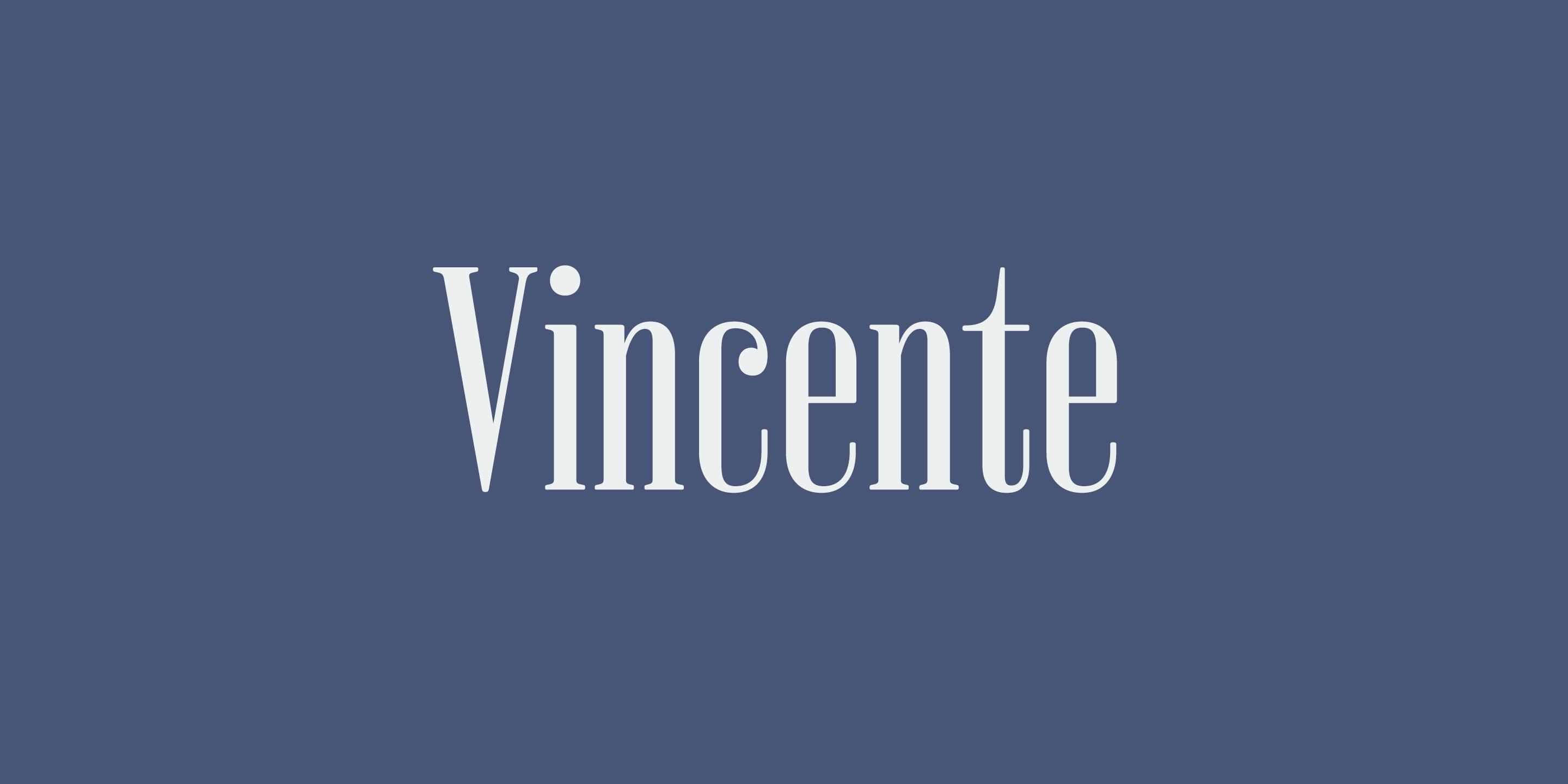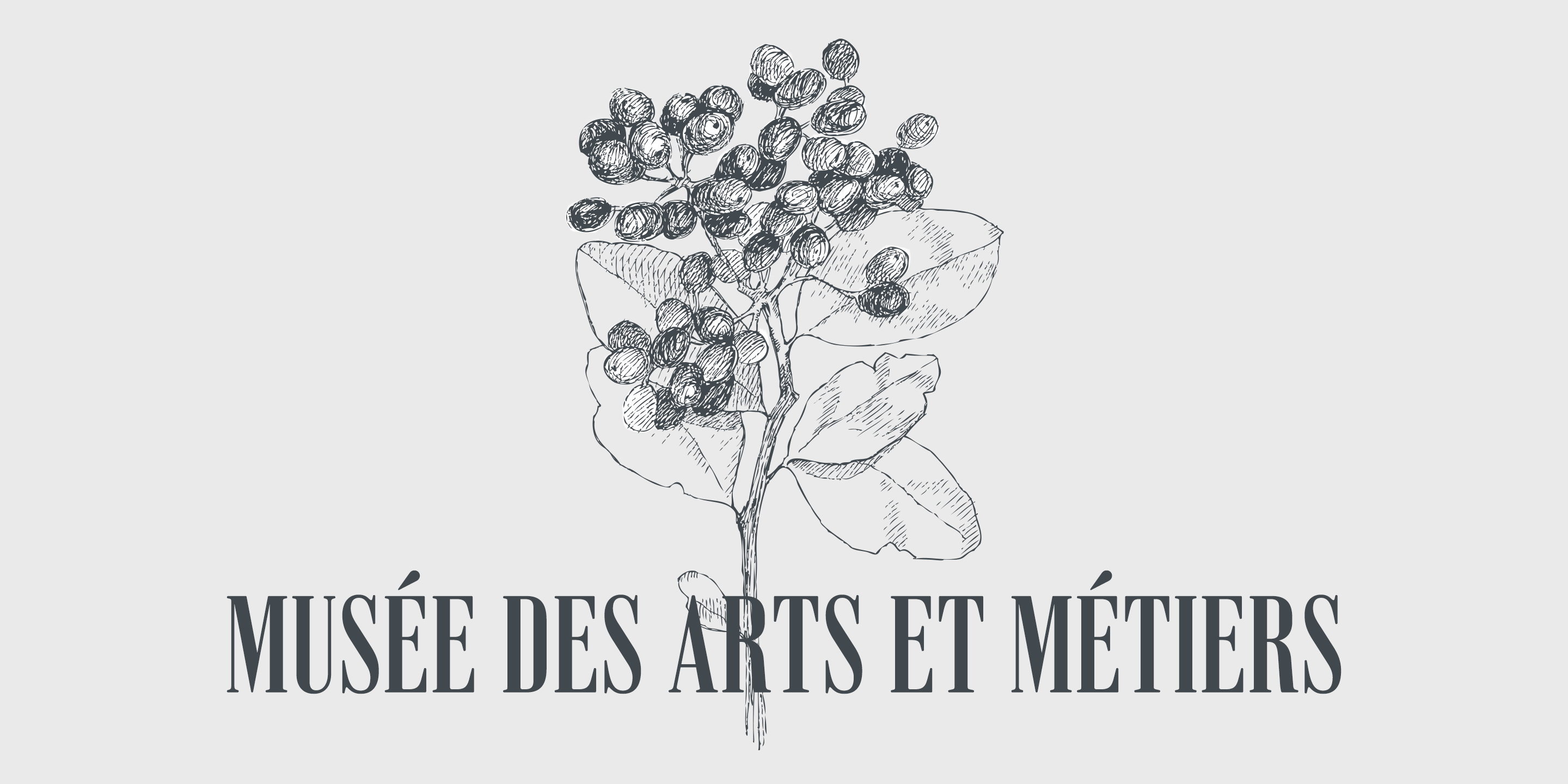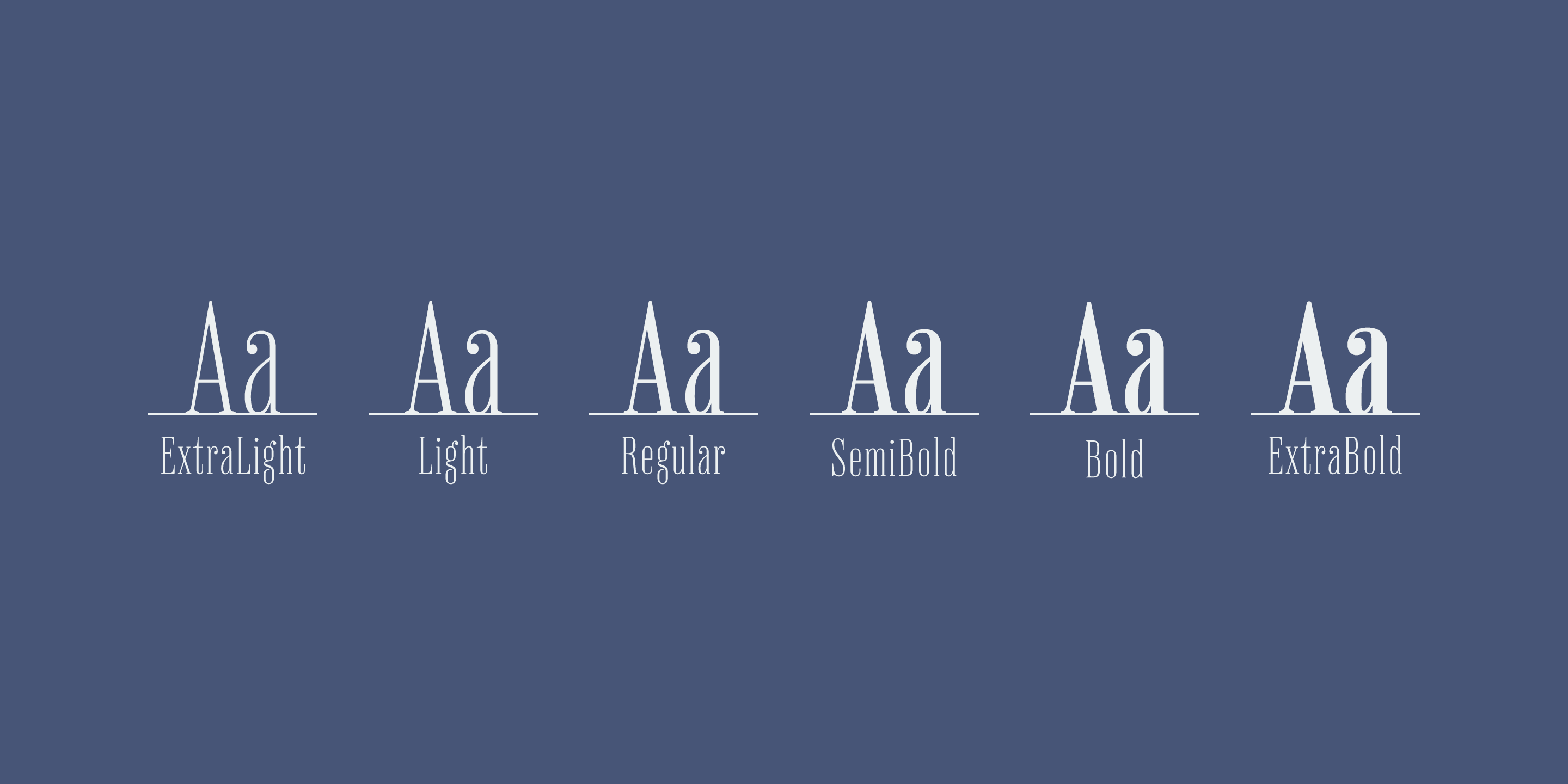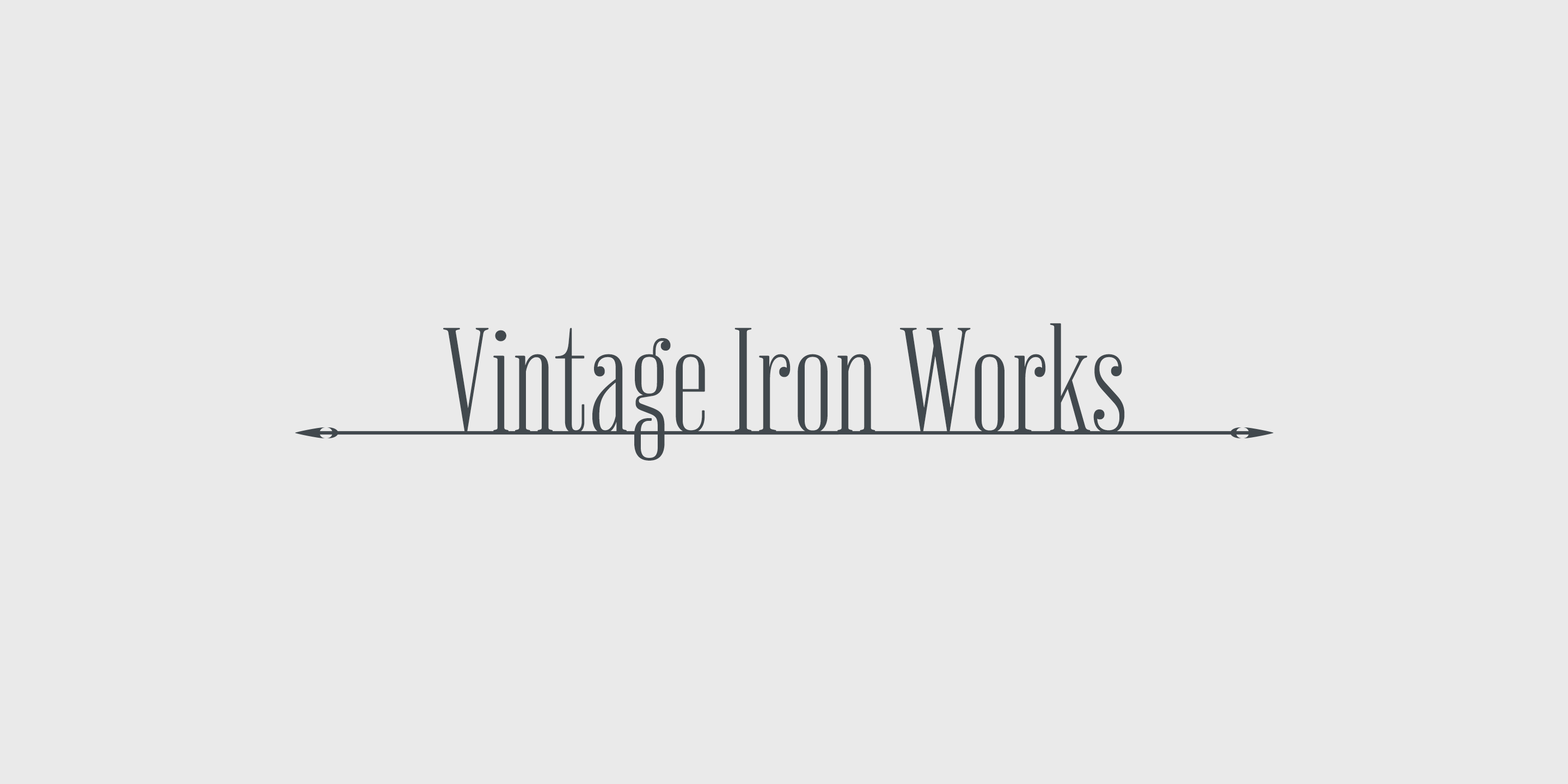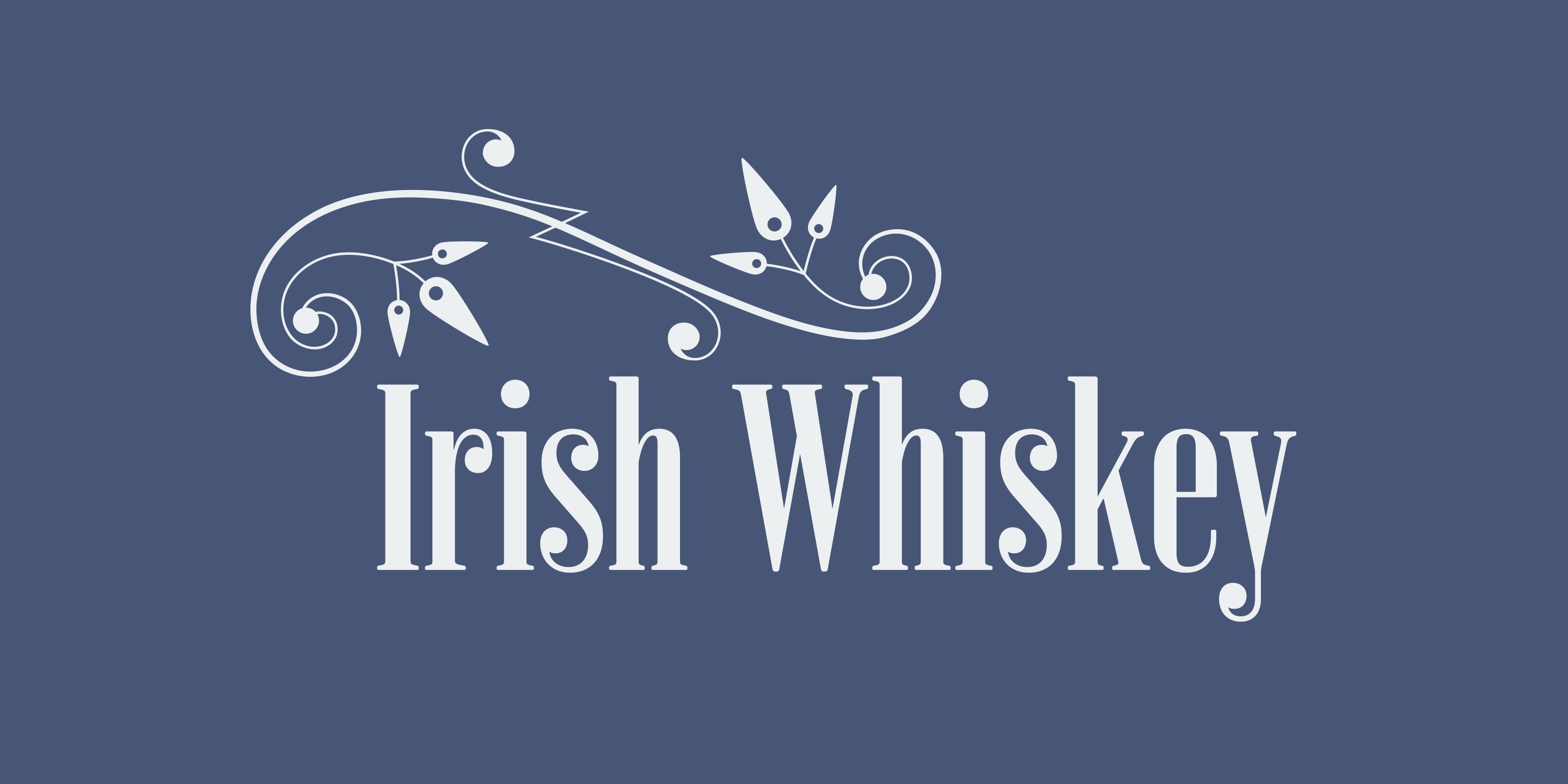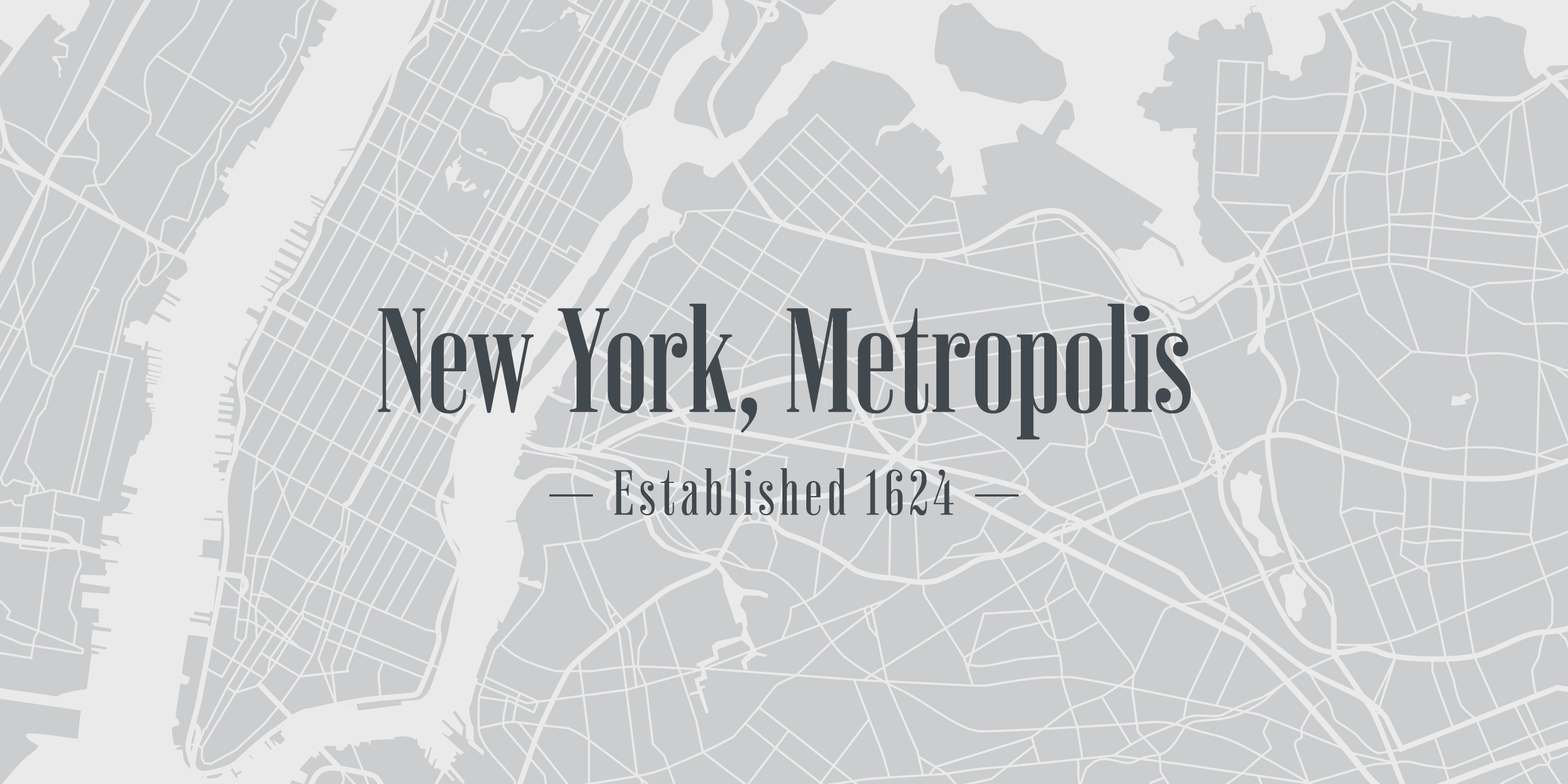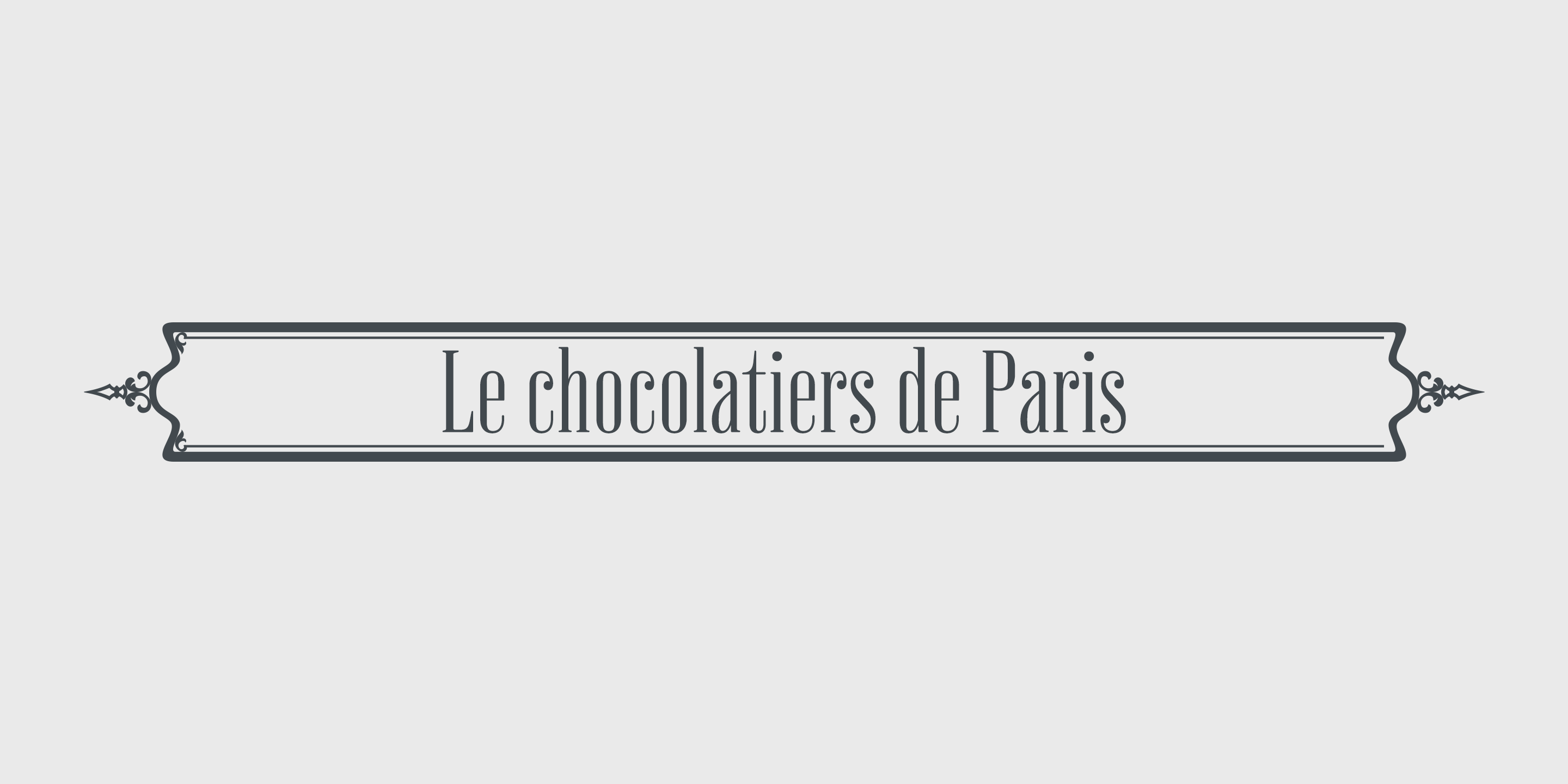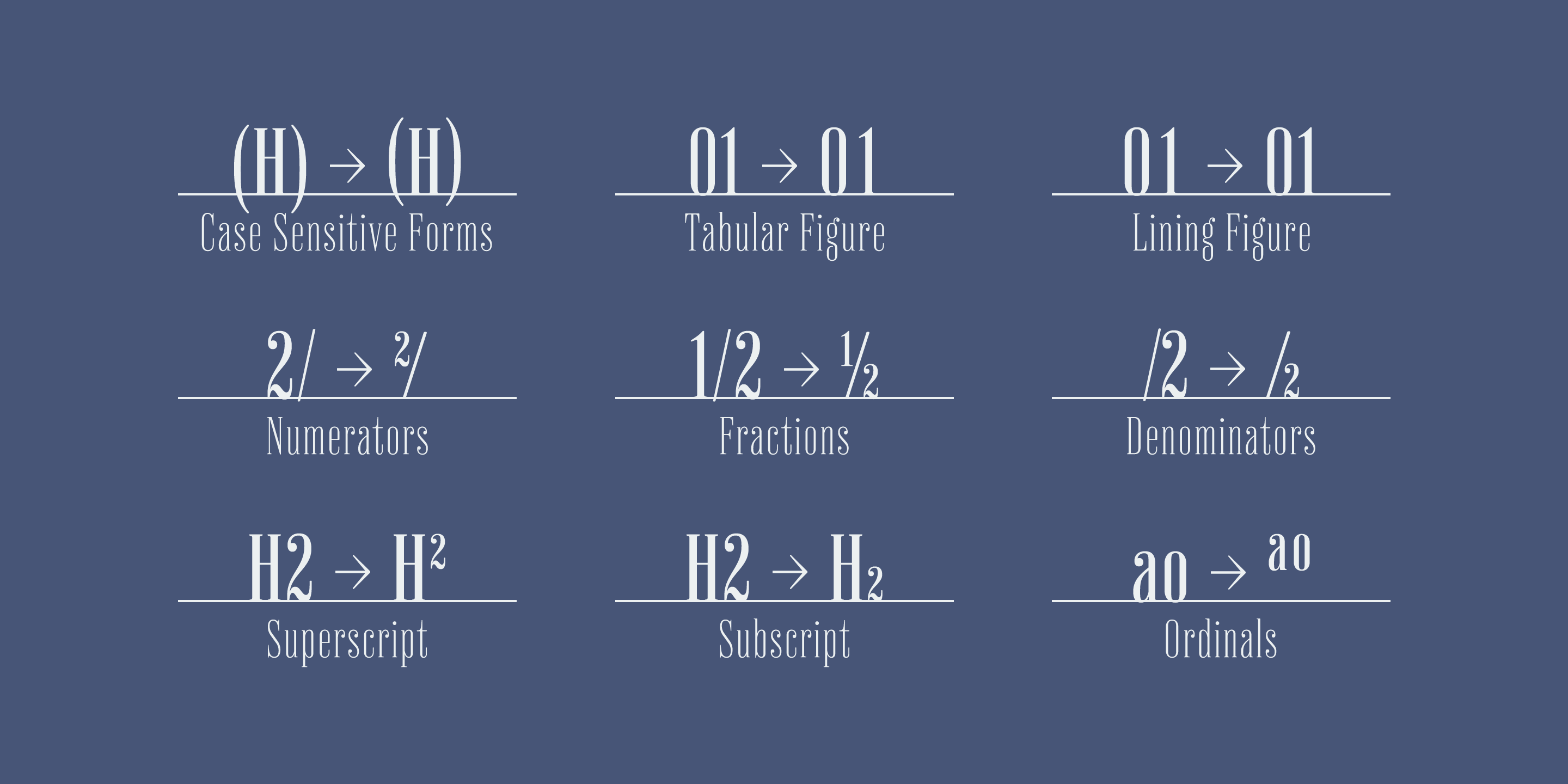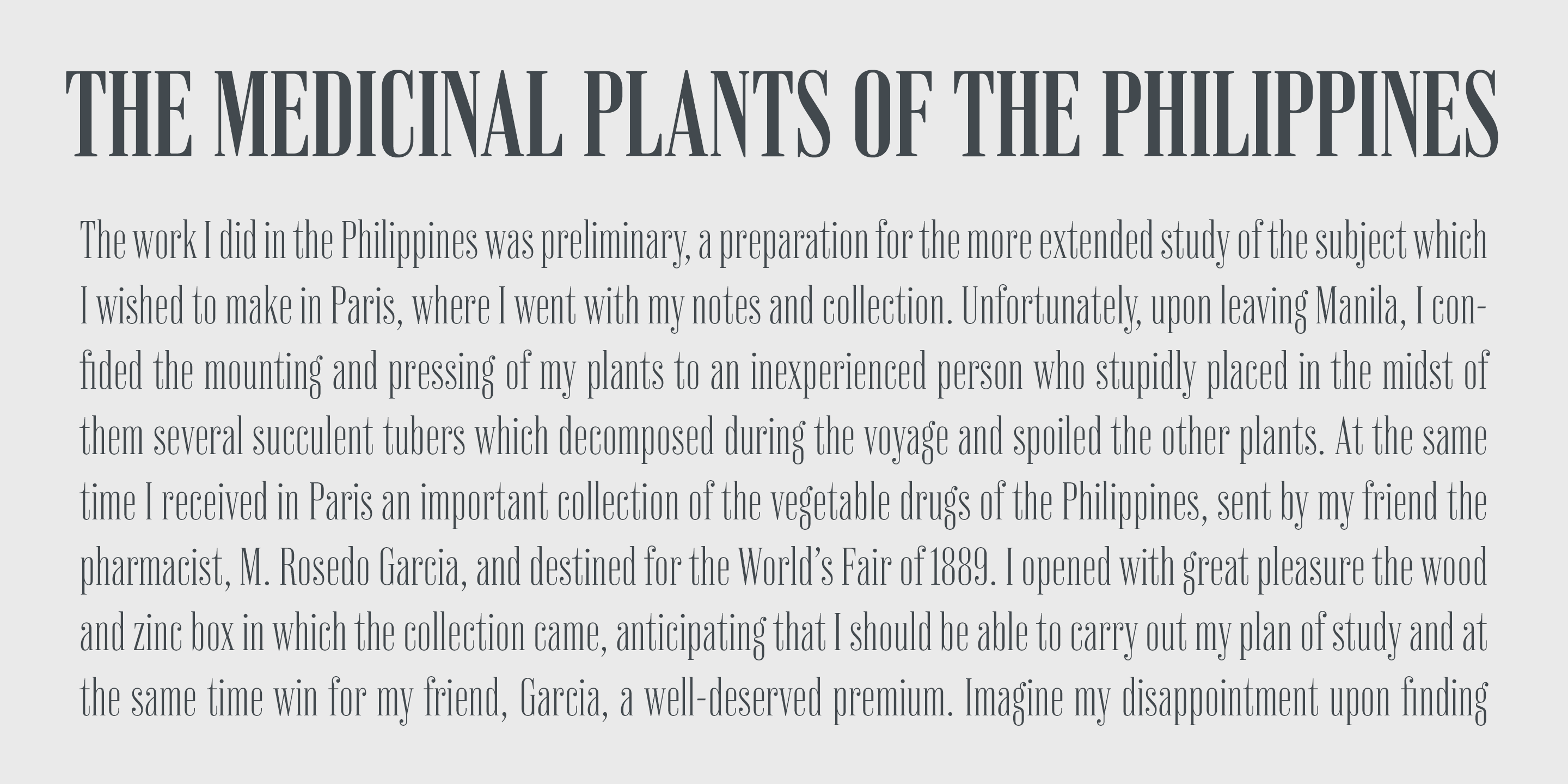
Vincente Family (6 fonts)
Sophisticated curves but they have human warmth as if they are hand-crafted. Consists of six weights and supporting almost all latin languages.